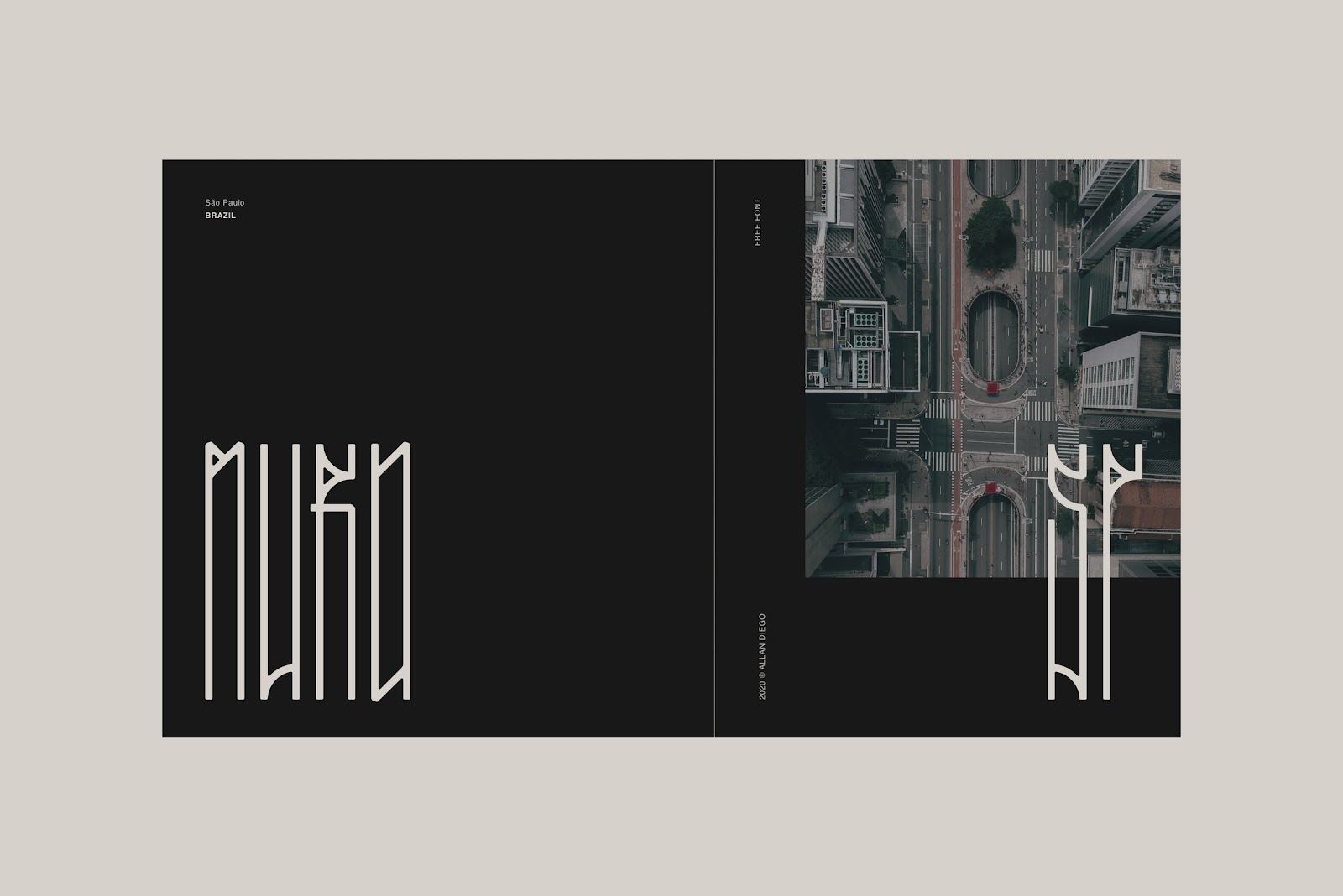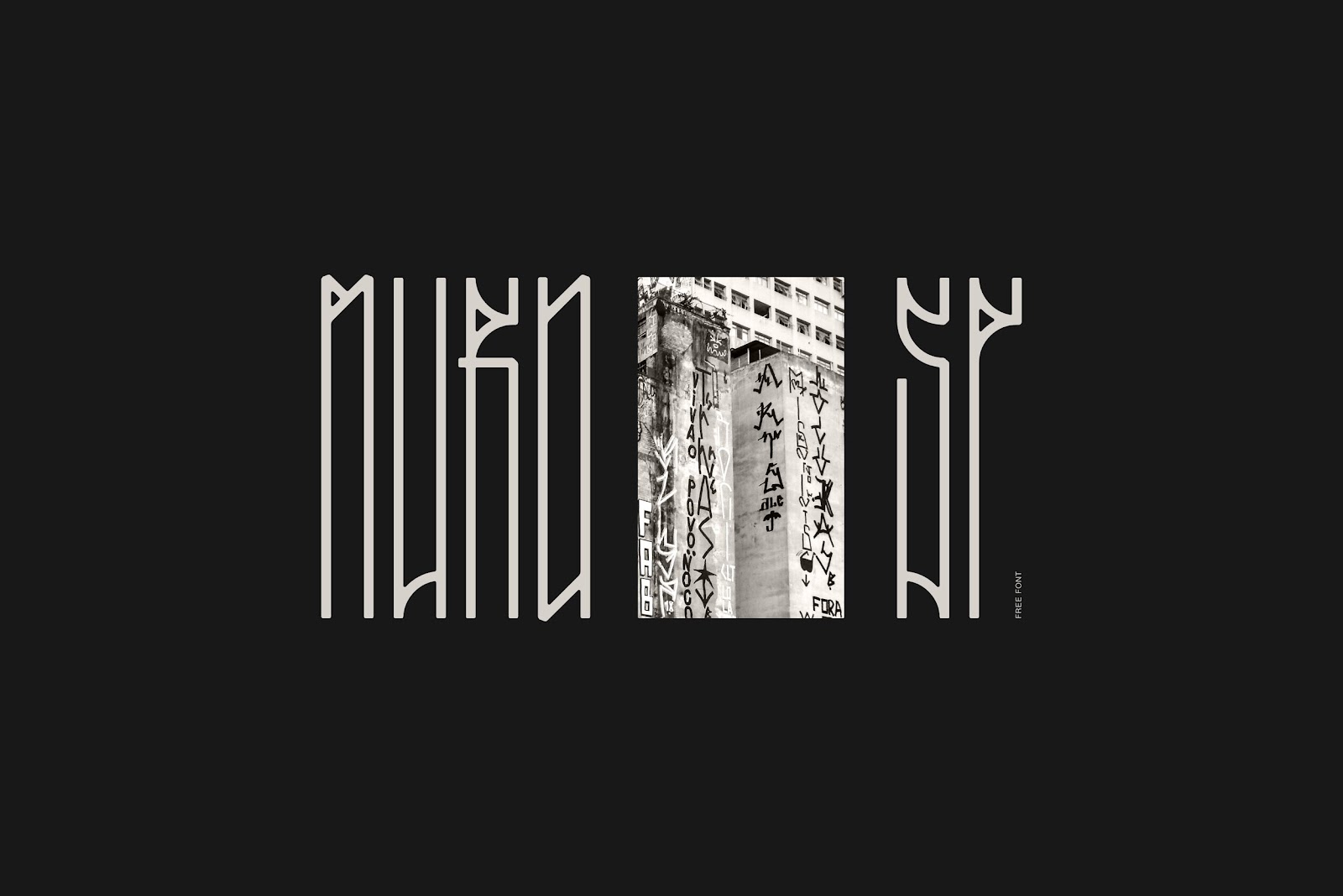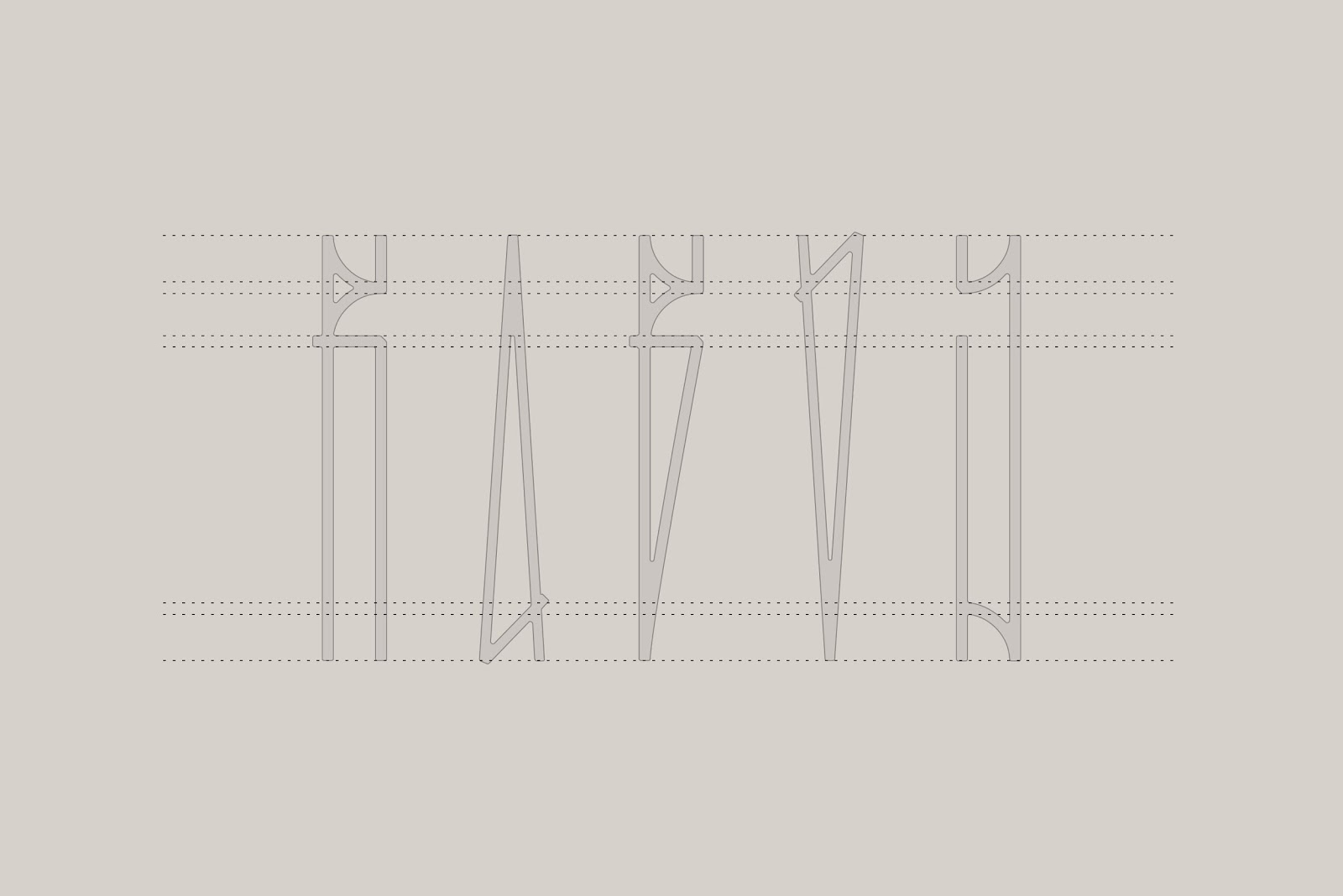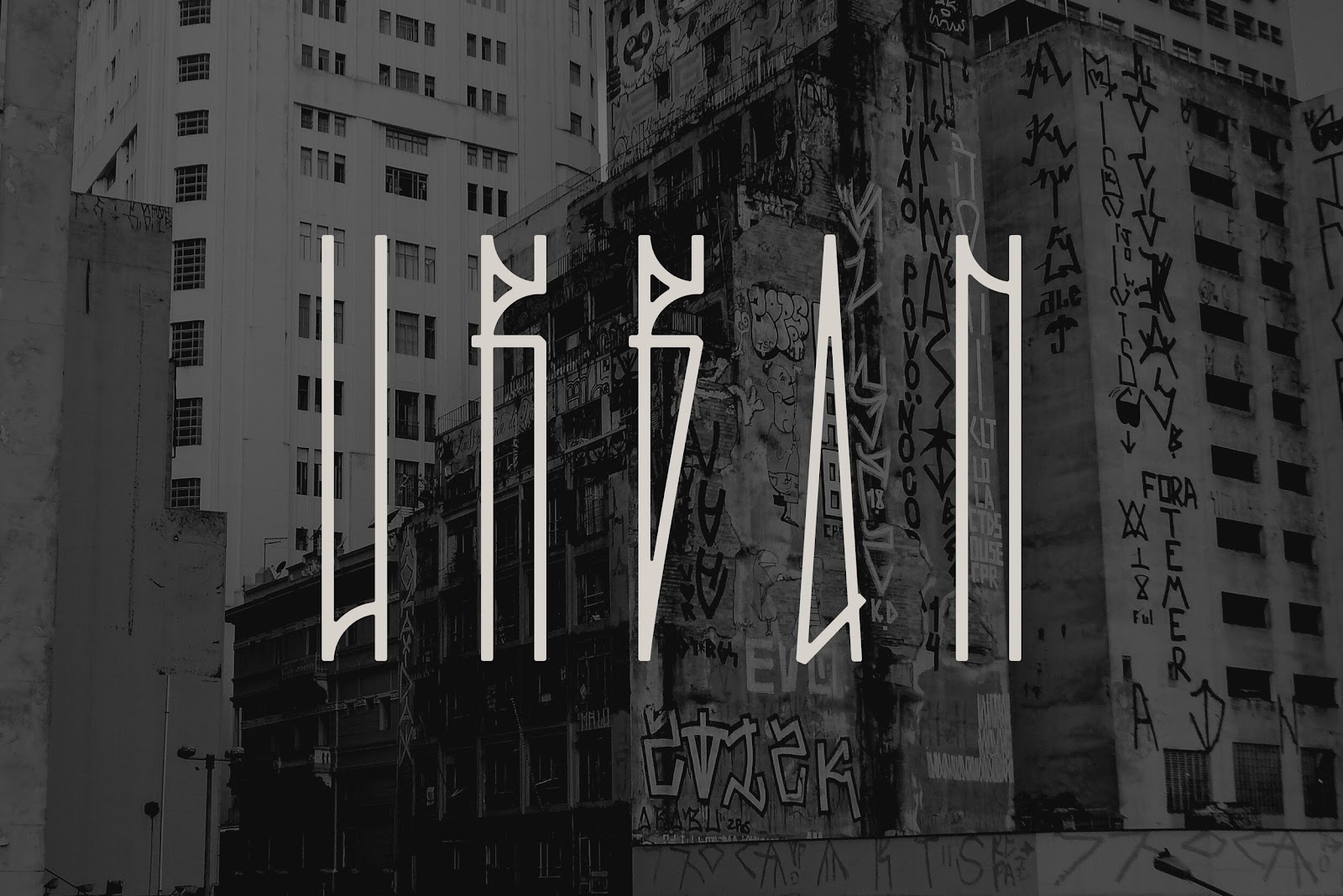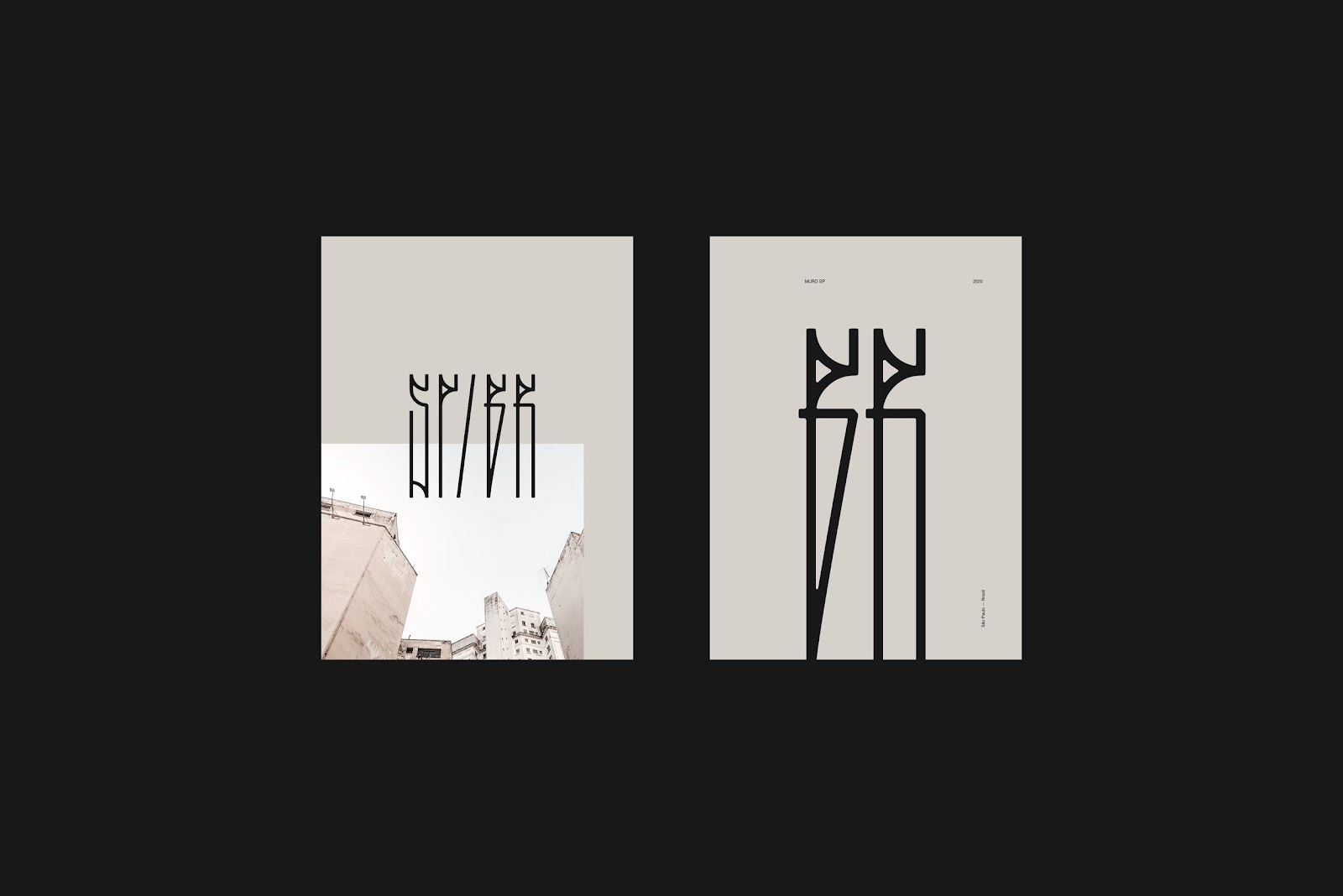
Typography Inspired by São Paulo Pixo (Free Font)
MURO SP is a typeface inspired by ‘pixo’, a form of urban expression that covers buildings and walls in São Paulo with its unique and original spray painted typography style. It's impossible to walk around the city and not see it. It's everywhere.  What I did was create a typography based on all of 'pixo' that I saw every single day through these years walking in the city.
The designer behind this awesome free font is Allan Diego, a Brazilian designer currently living in LA. Allan spent the last 10 years living and working in São Paulo, the biggest (and coolest in his opinion) city of Latin America.
MURO SP Typography